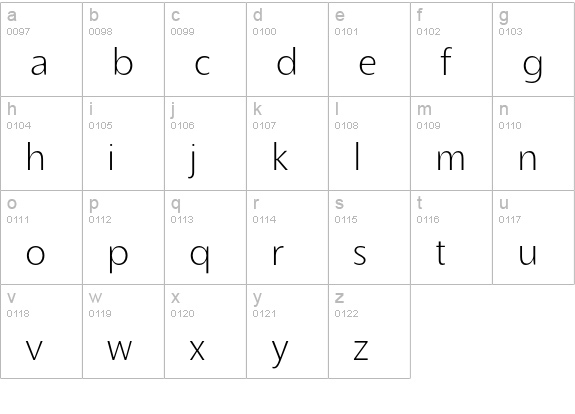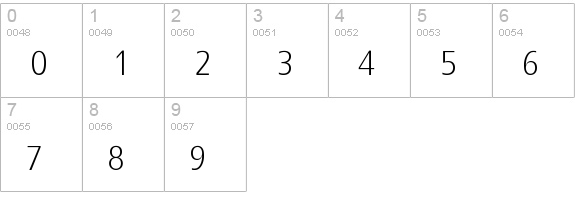
Slippy-Light is a refined, elegant variant in the Slippy typeface family \xE2\x80\x94 well suited to elegant body text, refined sub-headings, and luxury branding.
Slippy-Light font is a captivating and modern typeface that exudes a sense of elegance and sophistication. With its sleek lines and delicate curves, this font is perfect for a wide range of design projects, from branding and advertising to website headers and social media posts. What sets Slippy-Light font apart is not only its aesthetic appeal, but also its versatility. It can effortlessly adapt to both minimalist and bold designs, making it an ideal choice for designers who value flexibility. Whether you're looking to create a clean and professional look or a vibrant and eye-catching design, Slippy-Light font has got you covered. One of the best things about Slippy-Light font is that it is absolutely free to use. That's right! You can freely download this amazing font at FontsMarket.com, a reliable and trusted source for high-quality fonts. By offering this font for free, the creators of Slippy-Light font aim to make it accessible to designers of all levels, ensuring that everyone can experience the beauty and versatility of this exceptional typeface. So, if you're in need of a font that combines elegance, versatility, and affordability, look no further than Slippy-Light font. Download it today from FontsMarket.com and unleash your creativity with this truly remarkable typeface.